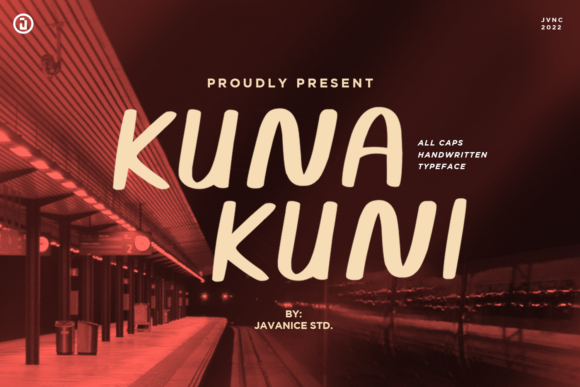
Introducing Kuna Kuni, the captivating handwritten font that exudes charm and playfulness. With its whimsical brush strokes and organic curves, this script font brings a touch of casual elegance to any design project.
Immerse yourself in the world of Kuna Kuni, where creativity and authenticity collide. Unleash your inner artist and let your words dance across the page with a unique, attention-grabbing style. Whether you're crafting stunning logos, eye-catching social media graphics, or heartfelt personal messages, Kuna Kuni is your perfect companion.
With its undeniable allure, Kuna Kuni is the ultimate choice for designers and creatives seeking to make a lasting impression. Its versatility knows no bounds, effortlessly adapting to a myriad of design aesthetics, from modern and minimalist to vintage and bohemian.
Discover the endless possibilities of Kuna Kuni and elevate your designs to new heights. Join the creative revolution and let your imagination soar as you bring your words to life with this enchanting handwritten font.